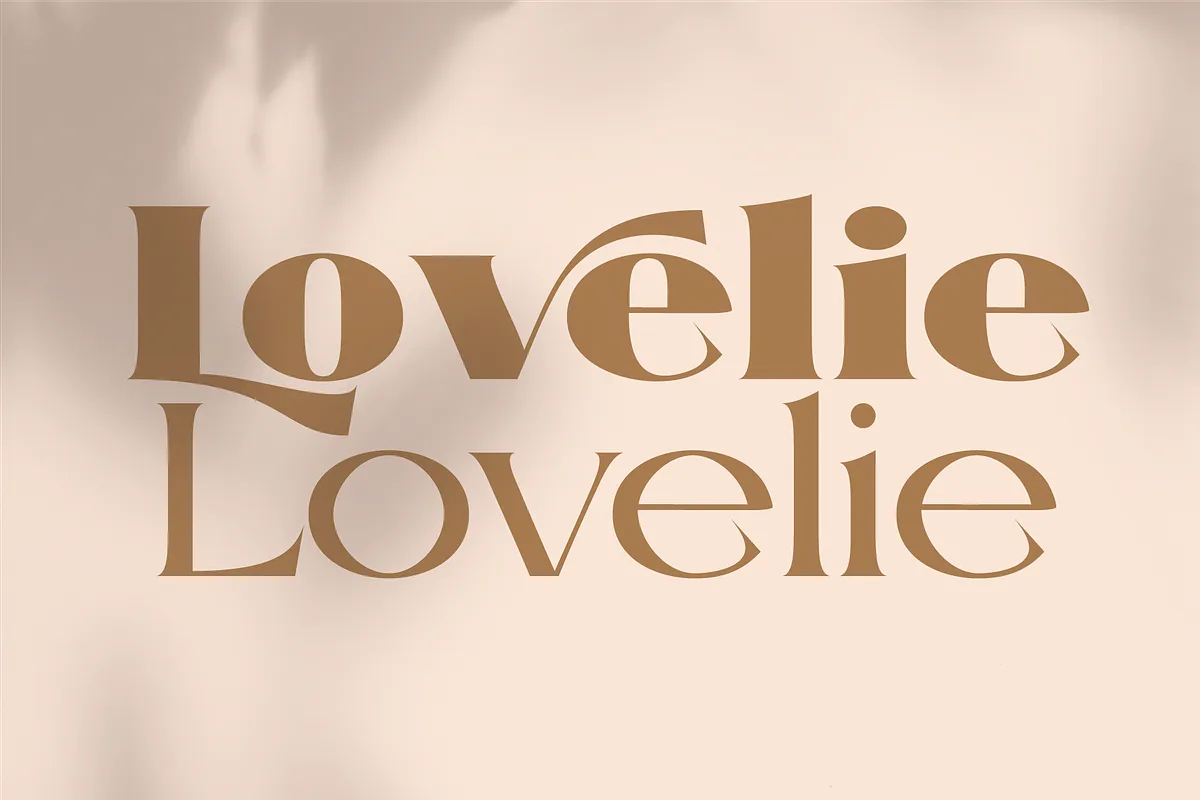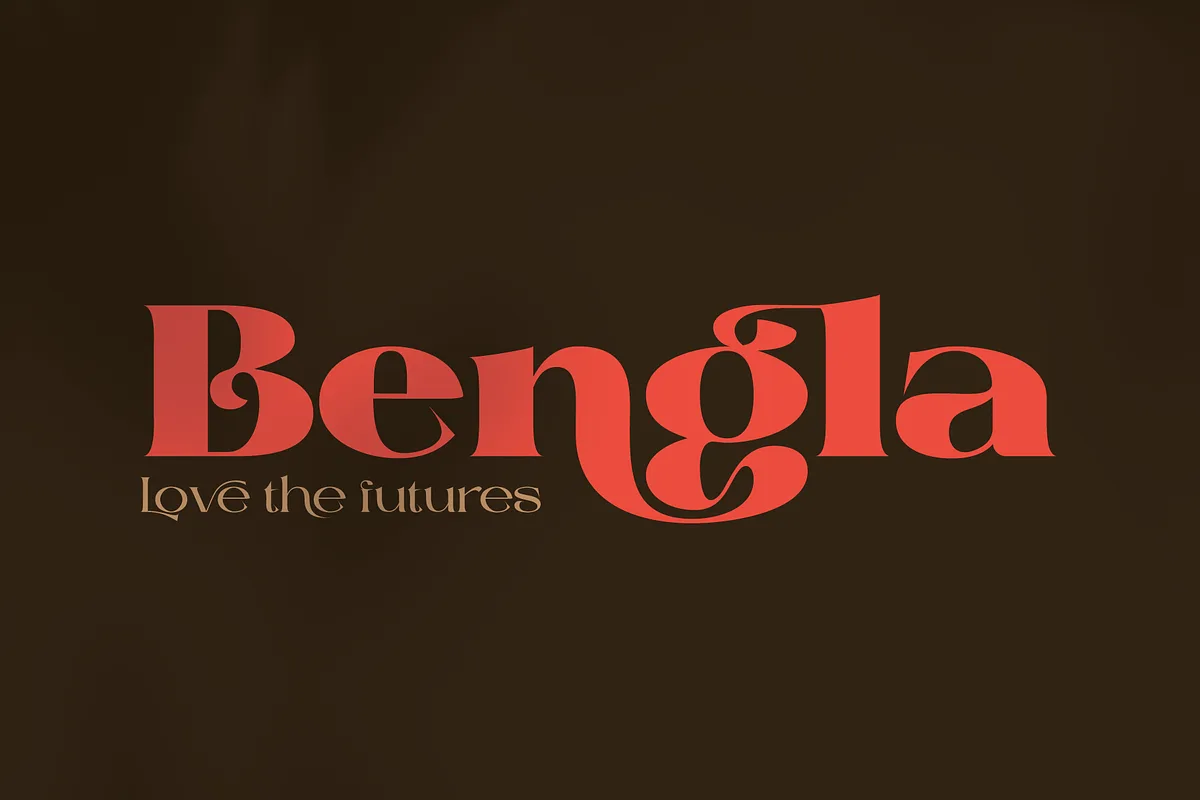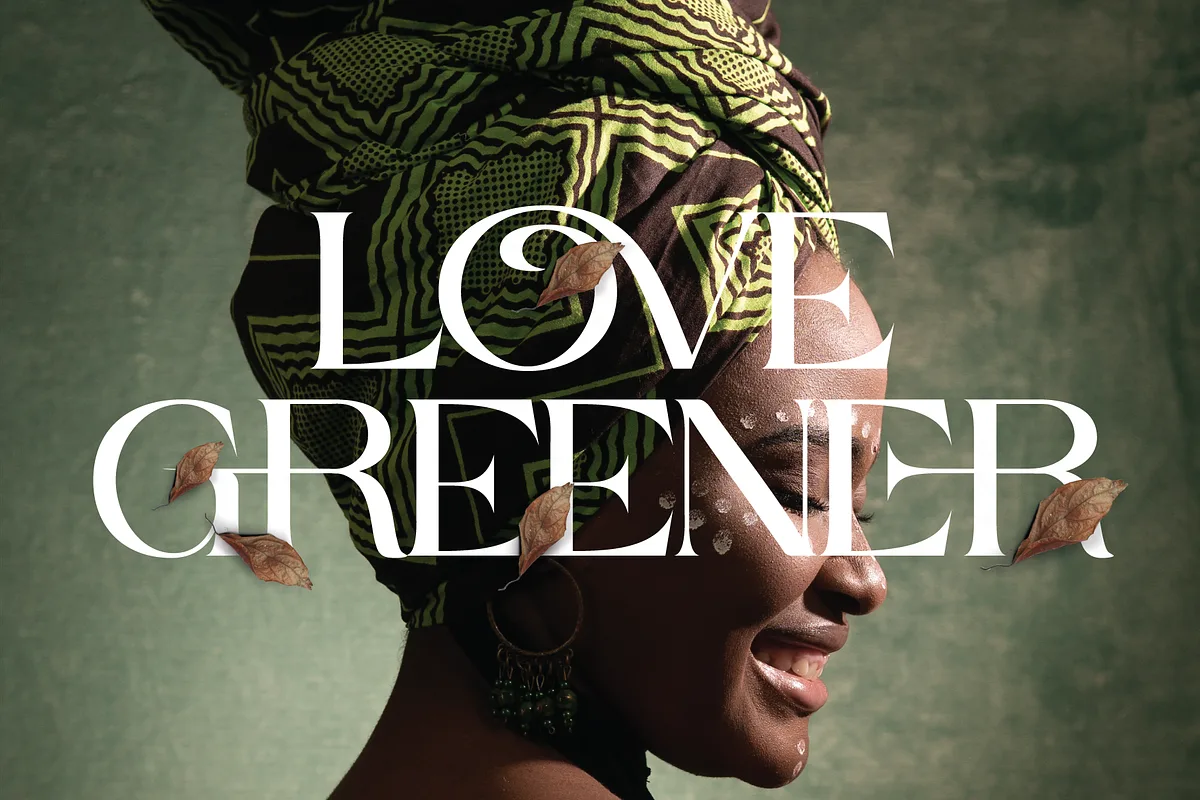
Cavas Nera Font
Cavas Nera is a modern & elegant serif font with discretionary ligatures that give each word a different shape. Also contains a swash with an elegant, contrasting and clean, perfect for logo designs, posters and various types of promotional media.